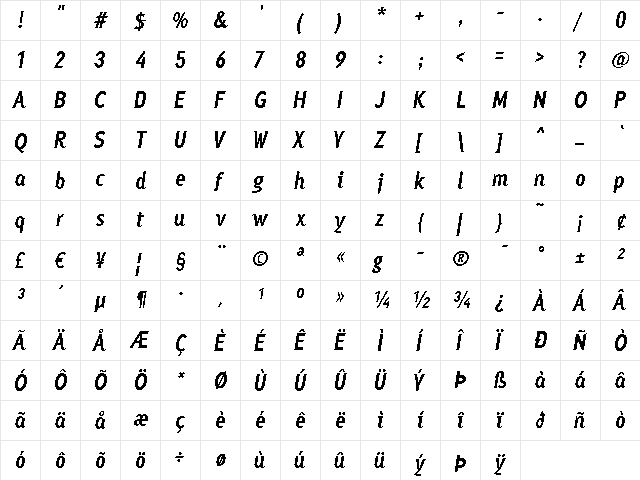
Ayumi Pro Bold Italic
| Foundry | Neil Summerour (Positype) |
| Designer | Neil Summerour (Positype) |
Design Context for Ayumi Pro Typeface
Ayumi Pro offers clean, dependable letterforms without strong stylistic allegiance, making it a practical choice for designers who need flexibility. The dynamic lean of this cut emphasises speed and emphasis in any layout. Its bold stroke weight gives it real presence on the page.